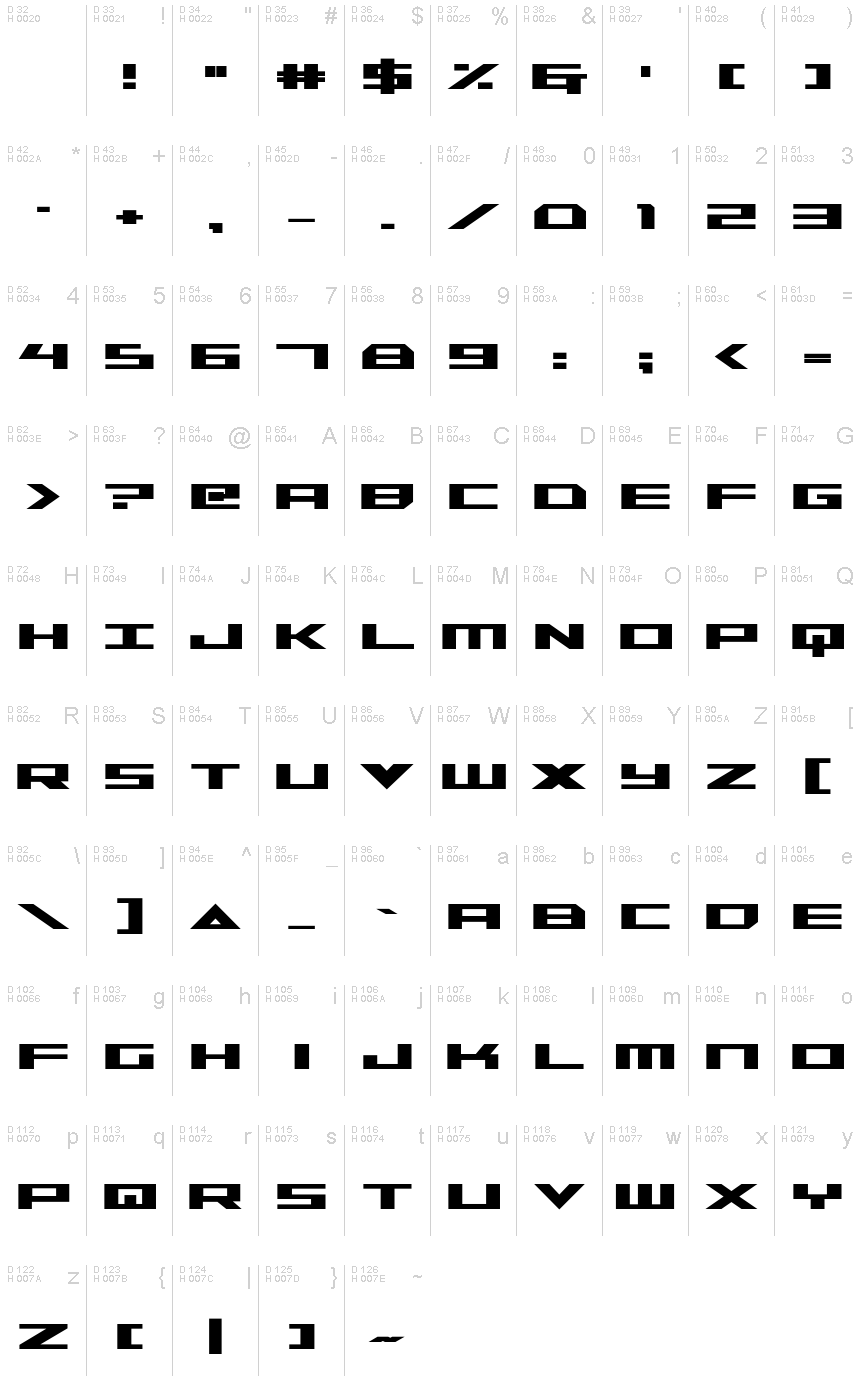
Trireme Condensed Bold by Daniel Zadorozny of Iconian Fonts is a free futuristic display font with a dense, machine-cut silhouette. Broad horizontal strokes and squared corners give the letters the mass of industrial signage, interrupted by narrow slots and sharply cropped openings. Several forms push toward near-abstract geometry, yet the repeated right angles keep the alphabet coherent.
Its hard-edged science-fiction character suits game interfaces, film title cards, and electronic music artwork, especially when the lettering needs to resemble equipment markings. Those geometric cuts can echo circuitry and mechanical illustration.